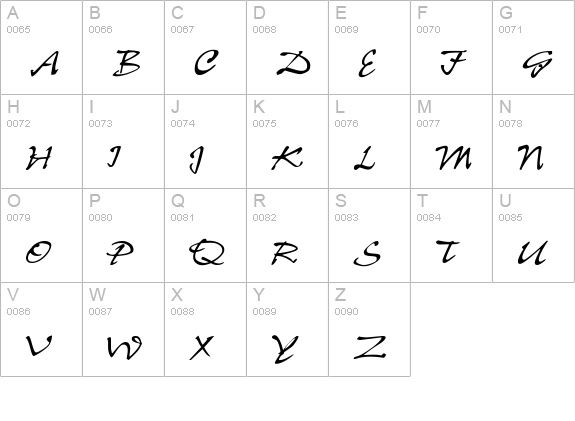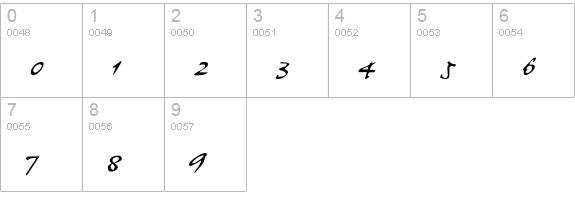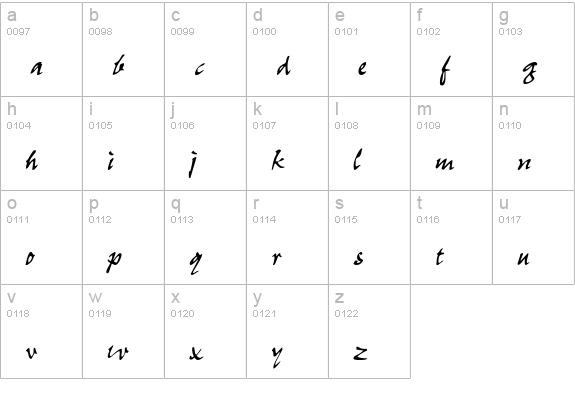
Snappy Font Details
Introducing Snappy, a modern and versatile font that brings a touch of playfulness to any design project. With its clean lines and captivating curves, Snappy effortlessly captures attention and adds a refreshing twist to your typography. Snappy is the perfect choice for a wide range of applications, from branding and logos to social media graphics and advertising campaigns. Whether you're creating a sleek and sophisticated design or aiming for a more casual and fun aesthetic, Snappy has got you covered. One of the best things about Snappy is that it's completely free! That's right, you can download this amazing font without spending a dime. Simply head over to FontsMarket.com and get your hands on this gem of a typeface. With Snappy, you don't have to compromise on quality or break the bank to achieve stunning typography for your projects. Not only is Snappy free, but it also offers an extensive character set, including uppercase and lowercase letters, numerals, punctuation marks, and special symbols. This ensures that you have all the tools you need to create eye-catching designs that truly stand out. Snappy's versatility extends beyond its character set, as it pairs well with a variety of design elements. Whether you want to combine it with bold graphics, vibrant colors, or elegant illustrations, Snappy effortlessly adapts to suit your creative vision. So why wait? Download Snappy today and elevate your design projects to new heights. With its unique charm and the fact that it's freely available at FontsMarket.com, Snappy is a must-have font for any designer looking to make a lasting impression. Don't miss out on this opportunity to add a touch of Snappy to your creations and watch them come to life!